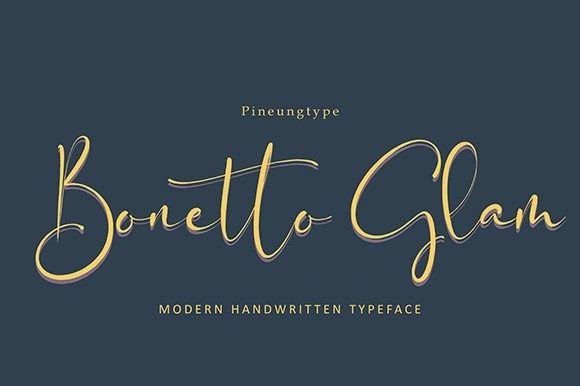
The Ultimate Guide to Bonetto Glam Font: Elevate Your Designs with Style
Have you ever been in the middle of a design project, and suddenly, you’re stuck on finding the perfect font? I recall a particularly frustrating experience while working on a wedding invitation design. My client wanted something elegant, modern, and stylish, but I just couldn’t seem to find the right fit. That’s when I stumbled upon the Bonetto Glam font, and it completely transformed my design. In this article, we’ll dive into the world of Bonetto Glam, exploring its features, uses, and tips on how to make the most of this stunning font.
A Personal Review: What I Love About Bonetto Glam
So, what makes Bonetto Glam so special? Here are a few things that I absolutely love about this font:
- ✨ Modern shape and stylish writing style: Bonetto Glam has a sleek, contemporary look that’s perfect for a wide range of design projects.
- ✅ Versatility: This font is ideal for branding, web design, editorial, prints, crafts, and quotes.
- 💫 PUA encoded: With PUA encoding, you can easily access all the amazing glyphs and ligatures, making it a breeze to add a personal touch to your designs.
While Bonetto Glam is an excellent font, there are a few minor quirks to be aware of:
The Designer Inspiration Behind Bonetto Glam
Although we can’t know for certain, it’s likely that the creators of Bonetto Glam were inspired by the world of high-end fashion and luxury design. With its sleek lines, elegant curves, and sophisticated feel, this font embodies the essence of style and glamour.
| Font Name | Bonetto Glam Font |
| Author | Pineungtype & Missinklab |
| What is Bonetto Glam font best used for? | Bonetto Glam is ideal for a wide range of design projects, including branding, web design, editorial, prints, crafts, and quotes. |
| Is Bonetto Glam font PUA encoded? | Yes, Bonetto Glam is PUA encoded, making it easy to access all the amazing glyphs and ligatures. |